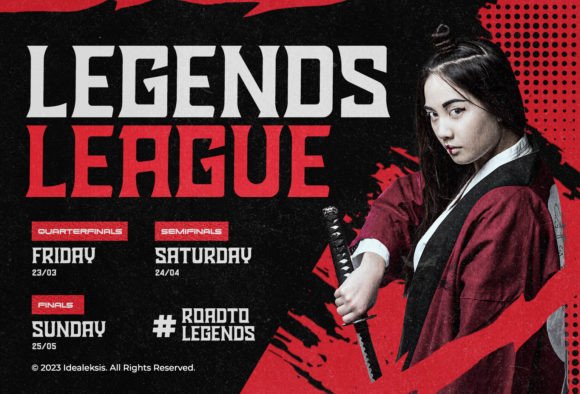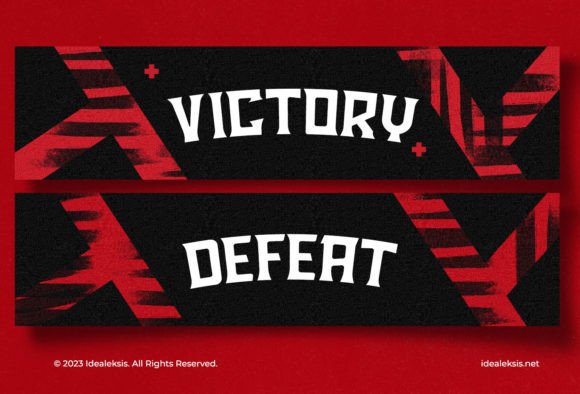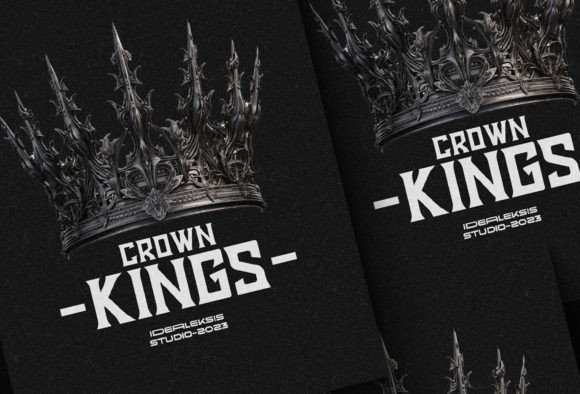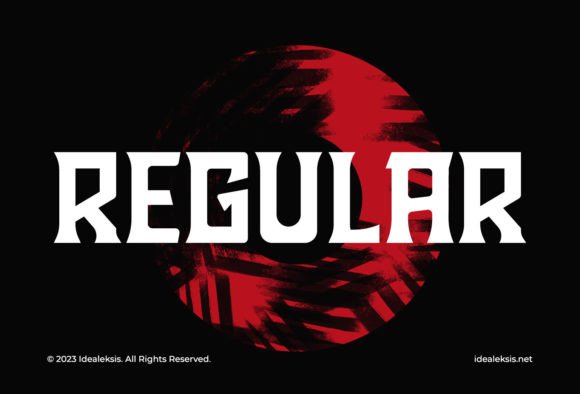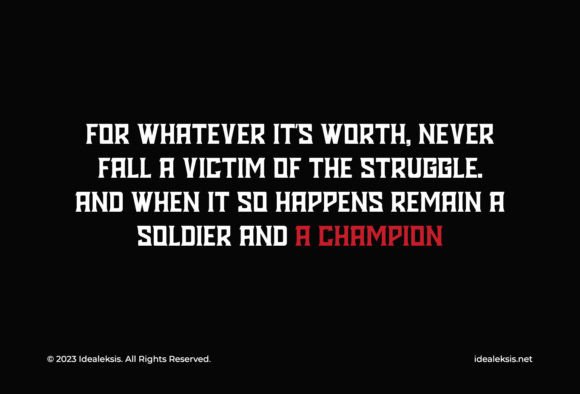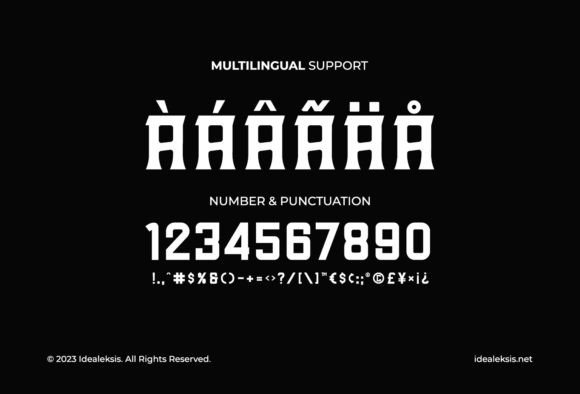
Introduction to Rock Thorn Font
Introducing ROCK THORN, an all-capital font that draws inspiration from the realms of fantasy characters.
Each letter exudes boldness, making it perfect for commanding attention in headlines and titles Unleash a touch of the fantastical in your designs with the powerful and captivating ROCK THORN font.
Key Features of Rock Thorn Font
Why Choose Rock Thorn Font?
Rock Thorn Font offers exceptional quality and versatility, making it a valuable addition to your design toolkit. Whether you’re creating for personal projects or commercial use, Rock Thorn Font delivers professional results.